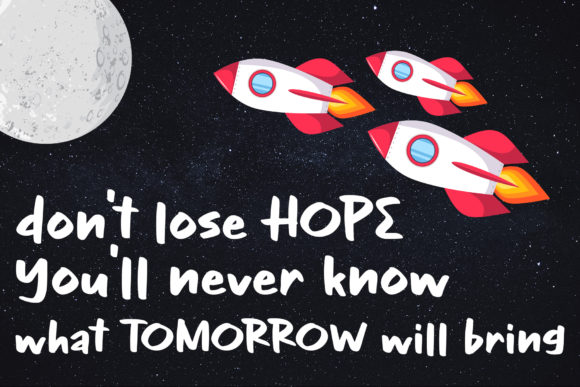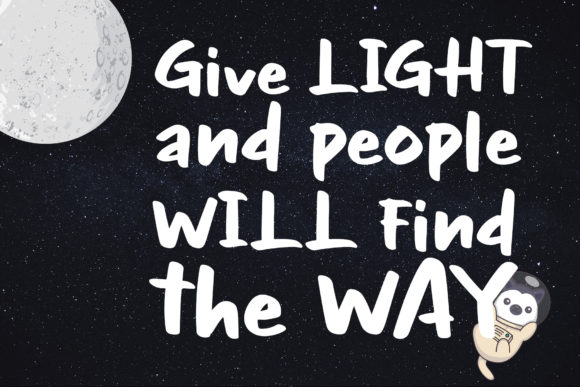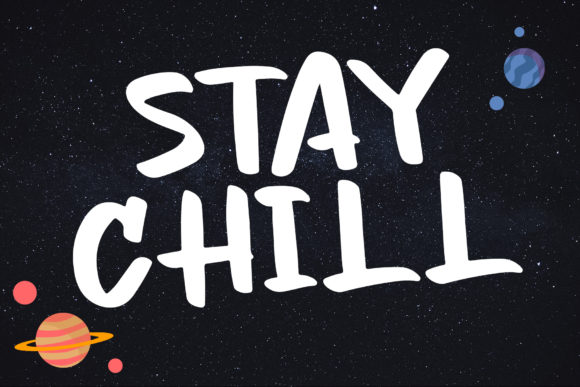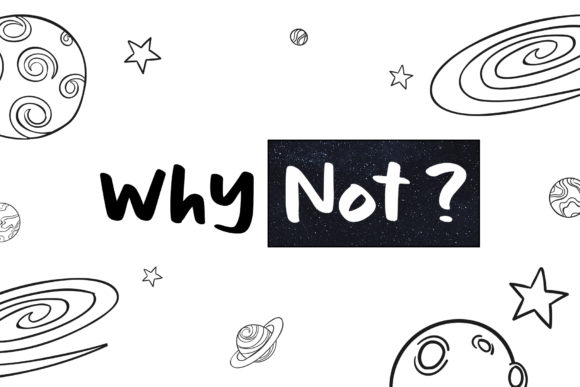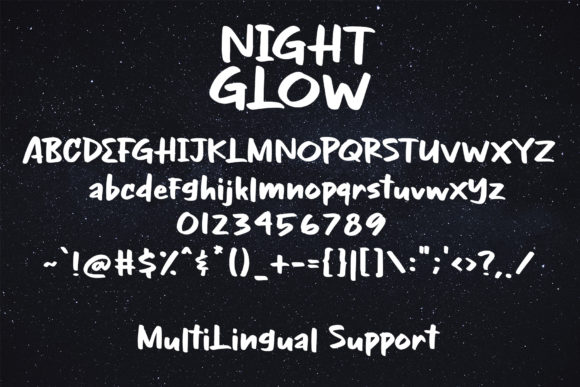
Night Glow Font
Night Glow is a fun and bold handwritten brush font. Its casual charm makes it appear wonderfully down-to-earth, readable and, ultimately, incredibly versatile.